Hauss and Raum in use for the Mitome Kit
Hauss and Raum in use as display and text for Mitome the world’s first comprehensive mitochondrial analysis testing kit.
Hauss and Raum living up to their promise as a perfect display and text pairing. Futuristic health testing company founded by Chris Masterjohn PhD seeks to put Mitochondrial health at the forefront of conversations around energy, congnitive function and aging. The forward facing clarity of Hauss and organic cellular forms of Raum fit the job perfectly.
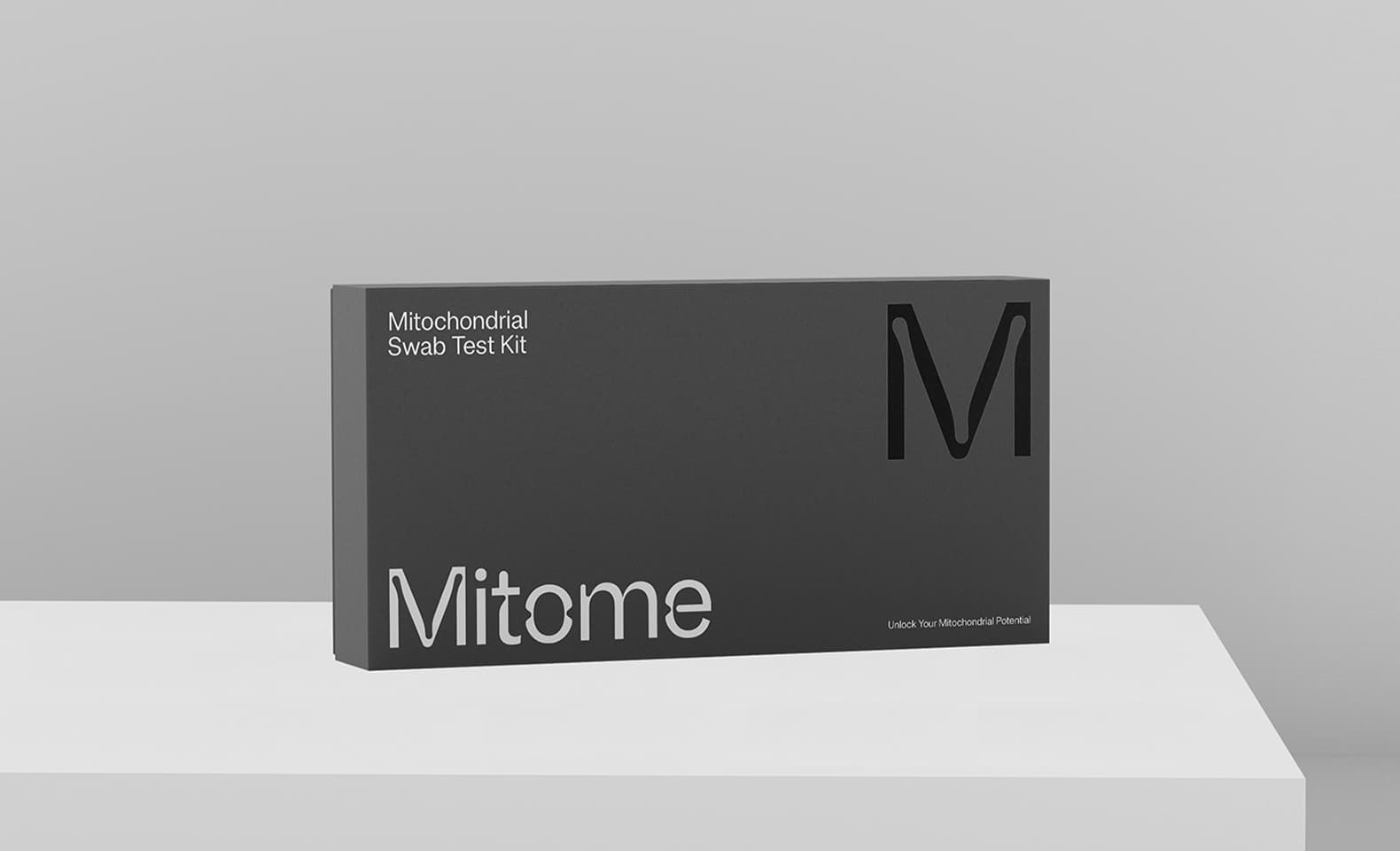
Mitome Kit
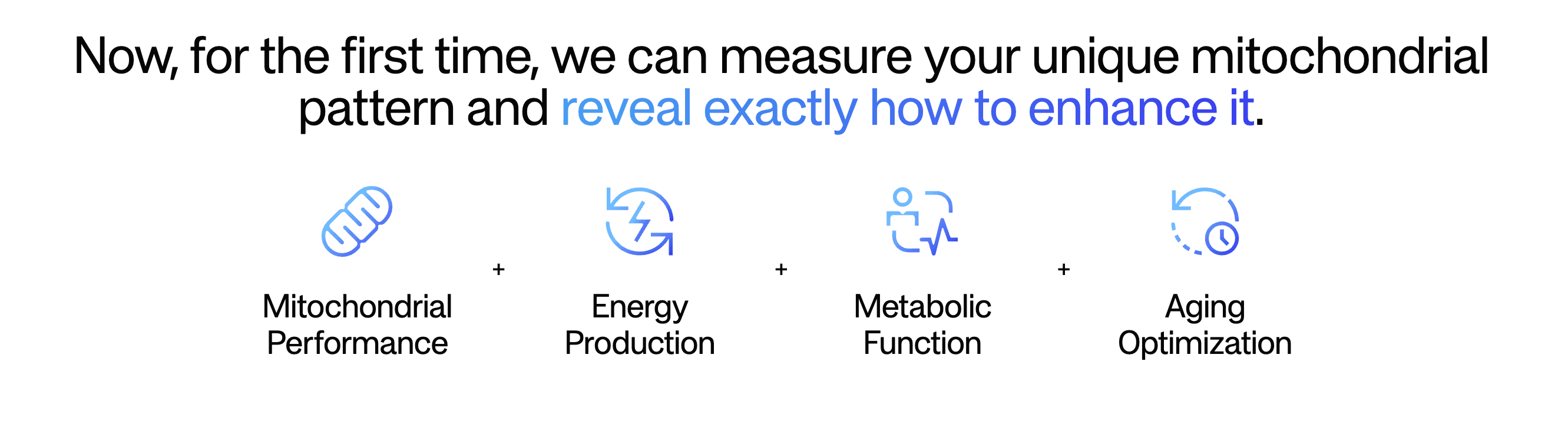
Alongside Mitome color stystem and iconography
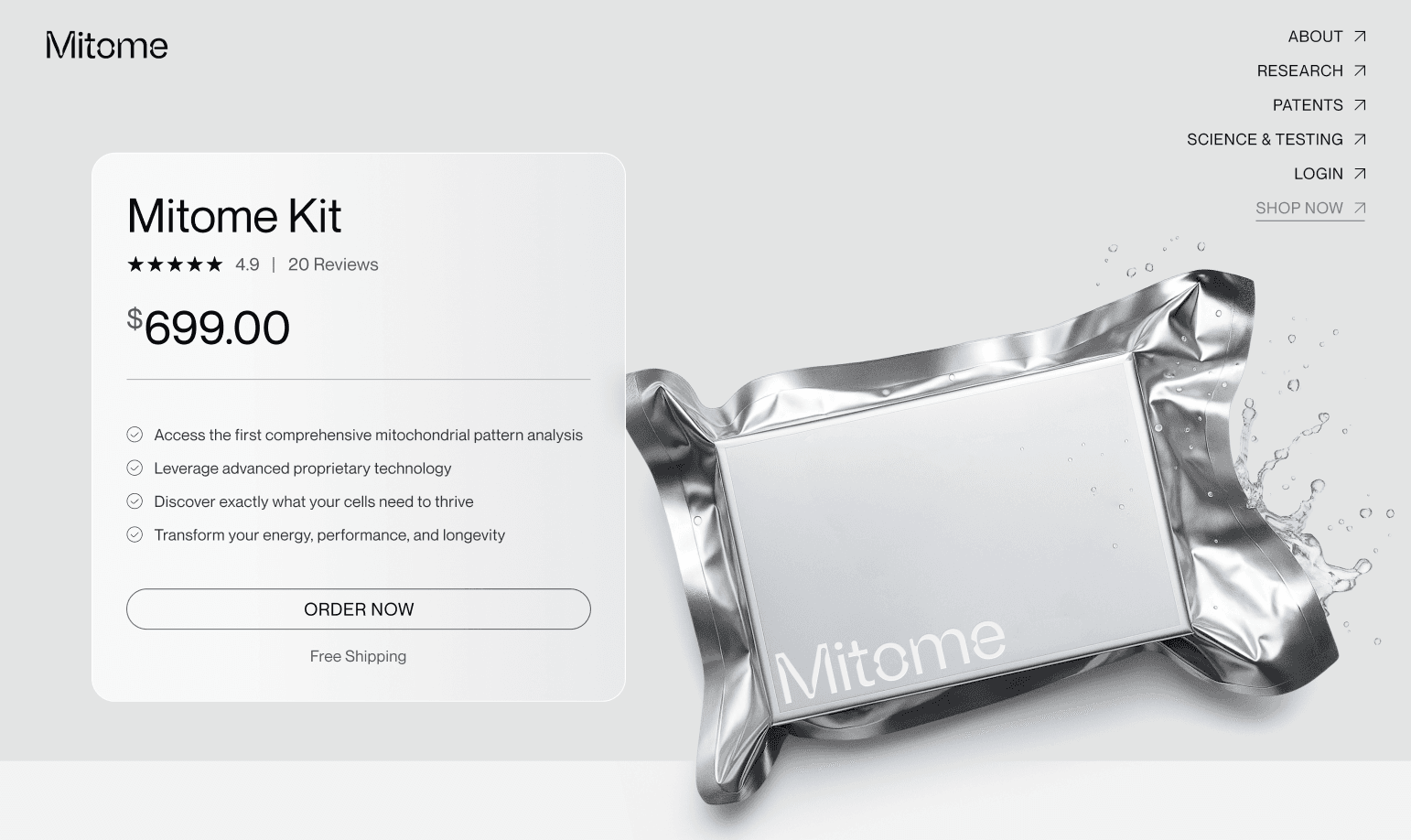
Mitome Kit